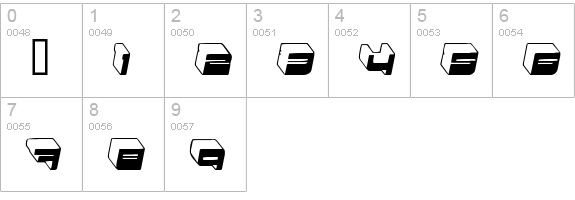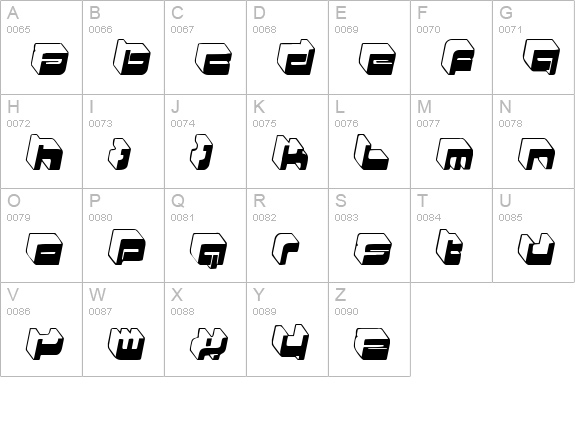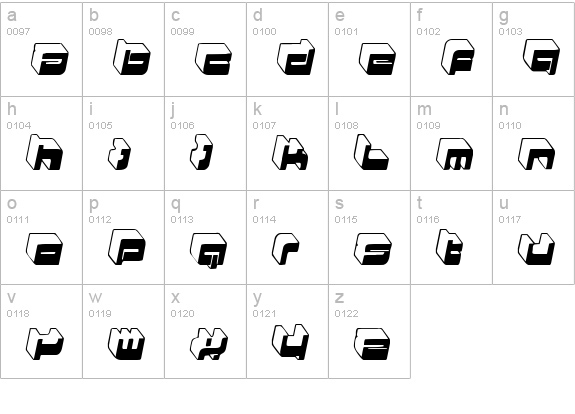
HKI Nightlife Font Details
Introducing HKI Nightlife font, a sleek and modern typeface designed to bring a touch of sophistication to your designs. This font is perfect for creating eye-catching headlines, logos, posters, and more with its stylish and elegant appearance. The HKI Nightlife font features clean lines and a contemporary look that will elevate any project to the next level. Whether you're working on a branding project, a website design, or any other creative endeavor, HKI Nightlife font is sure to make a lasting impression. Best of all, this stunning font is available for free download at FontsMarket.com, making it accessible to designers of all skill levels. Add a touch of class to your designs with HKI Nightlife font today!